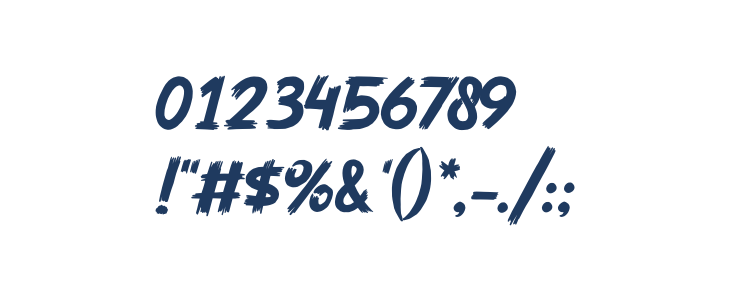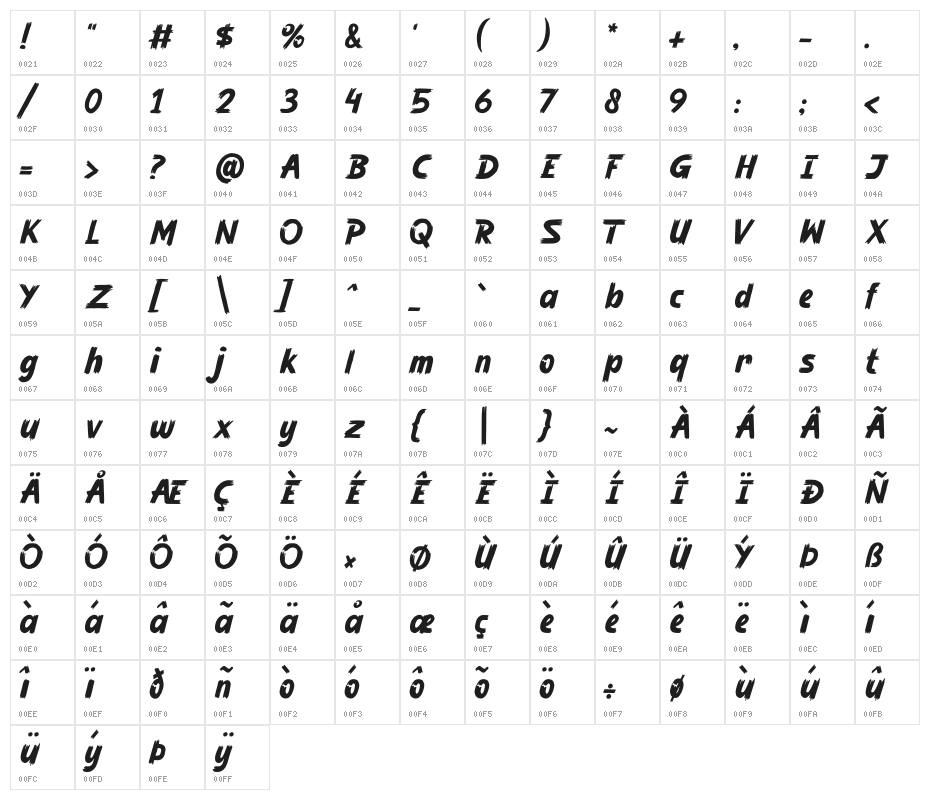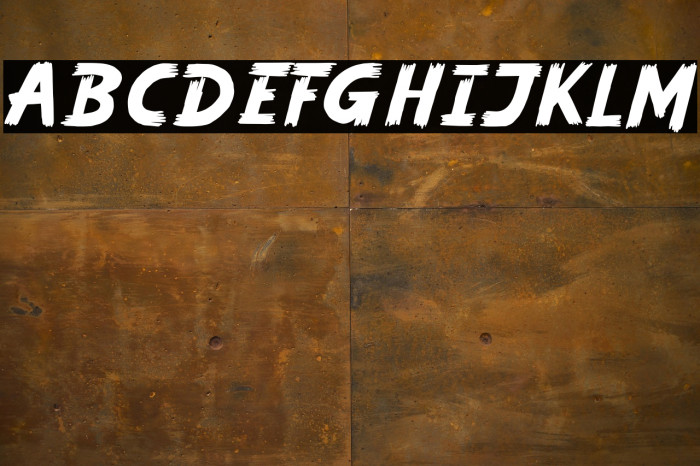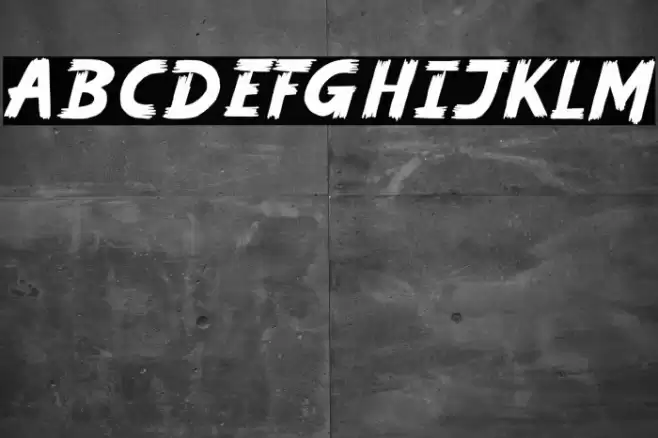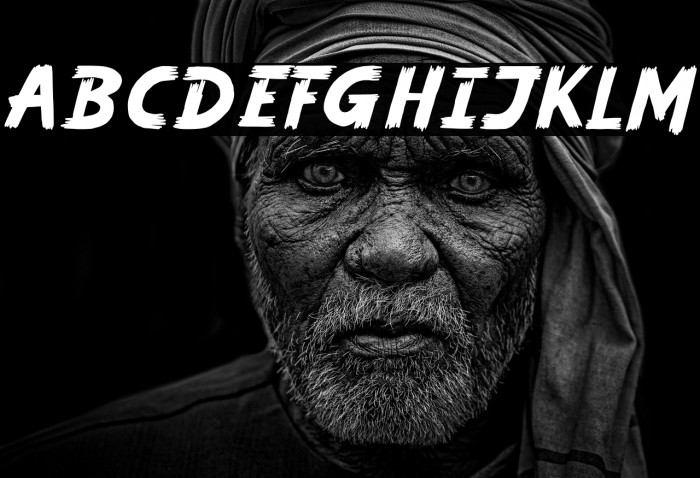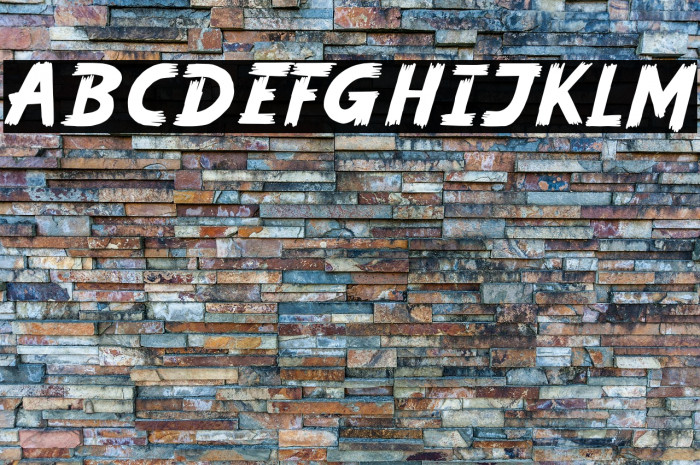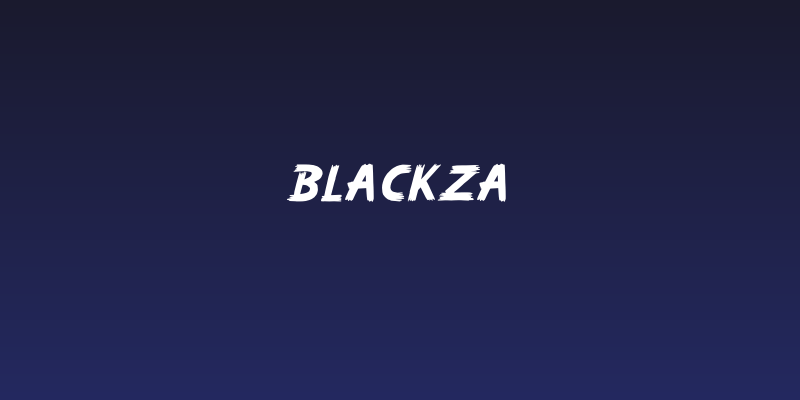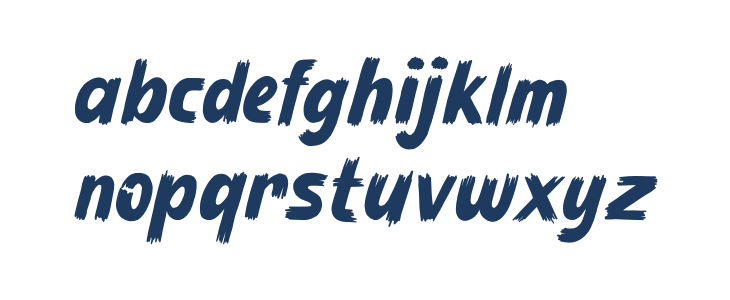
Blackza Font
Blackza Description
This font exhibits a bold and dynamic brush style, characterized by its energetic strokes and slightly irregular edges. The uppercase and lowercase letters maintain a consistent flow, with a sense of movement that suggests a hand-painted aesthetic. The numerals and special characters follow the same expressive style, adding to the font's overall impact. The design is both eye-catching and versatile, suitable for projects that require a strong visual presence. Its unique texture and boldness make it ideal for creative and artistic applications.